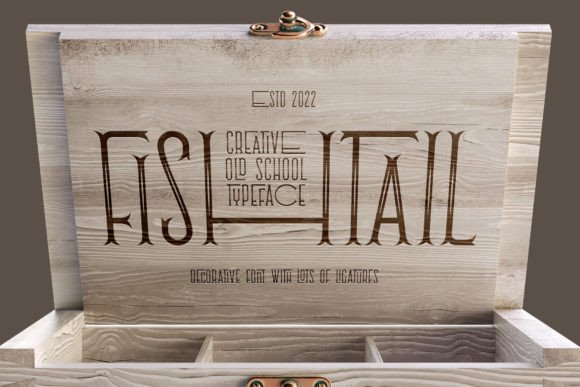
Fishtail Font
Fishtail is a unique and incredibly interesting display font. Contemporary and fresh, it is perfect for any design you wish to create. Add it to your creative projects and make them outstanding!